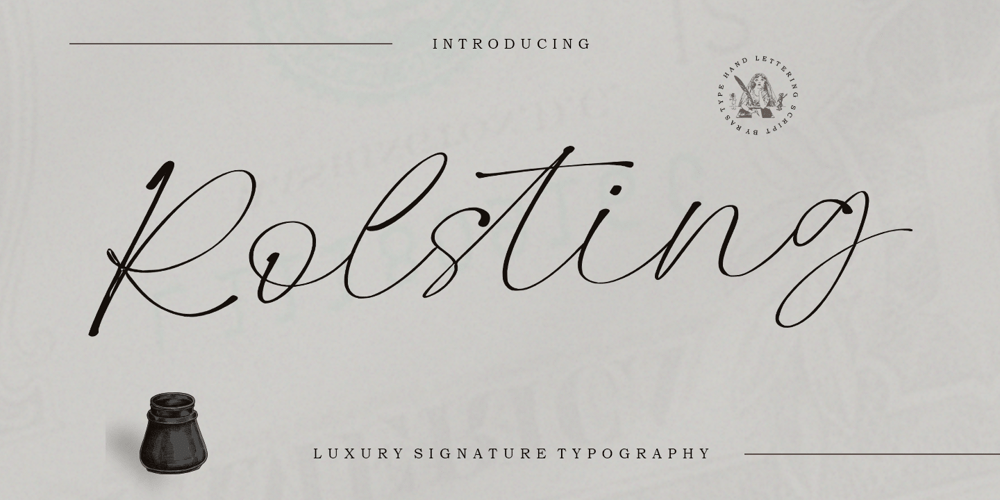
Rolsting Script
Rolsting Script font
Rolsting Script Font Family was designed by Muhammad Taufik and published by Rastype Studio. Rolsting Script contains 1 styles and family package options. Rolsting Script is a beautiful and cool handwritten signature font. Looks amazing on branding, quotes, business cards and other designs.The font includes multiple language support.Happy Designing!